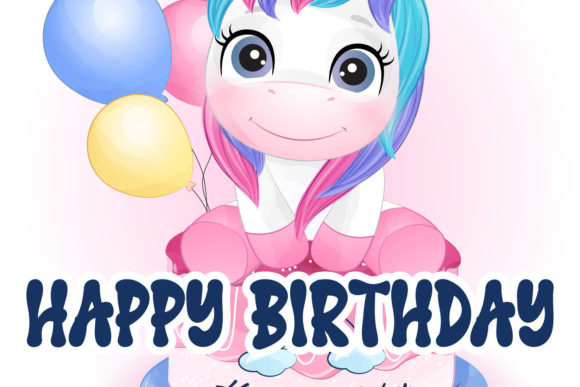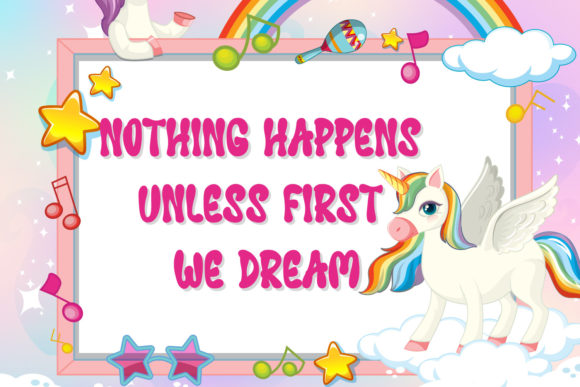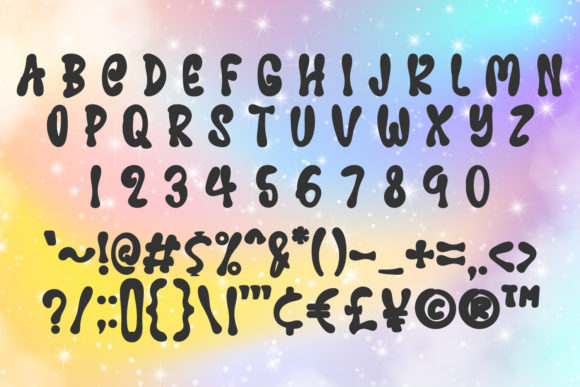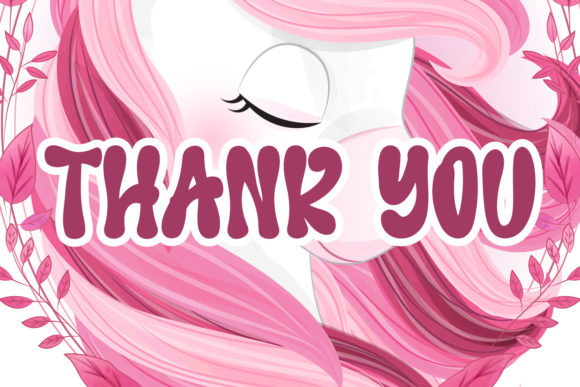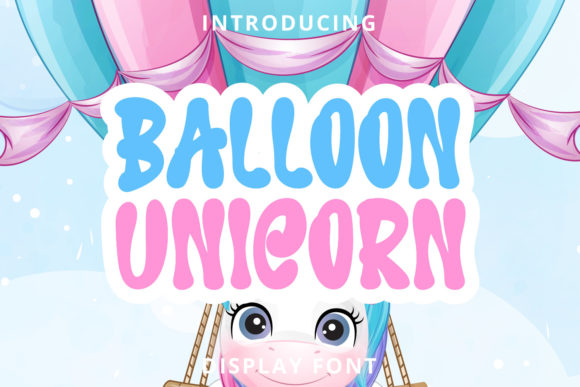
Introducing the Whimsical World of Balloon Unicorn Font
Are you on the hunt for a font that embodies the essence of playfulness and charm? Look no further than the delightful Balloon Unicorn Font! This fun and jolly display font is perfect for any children’s activity or school project that requires a touch of magic and whimsy.
The Perfect Blend of Playfulness and Authenticity
Balloon Unicorn Font is a unique and captivating typeface that is sure to capture the hearts of designers, crafters, and educators alike. Its playful and authentic design makes it an ideal choice for a wide range of creative projects, from colorful posters and flyers to engaging educational materials and fun craft projects.
Key Features of Balloon Unicorn Font
- Fun and Jolly Design: Balloon Unicorn Font boasts a playful and cheerful design that is sure to bring a smile to anyone’s face.
- Display Font: This font is specifically designed as a display font, making it perfect for headlines, titles, and other attention-grabbing elements.
- Playfulness and Authenticity: The font embodies a sense of playfulness and authenticity, making it perfect for projects that require a touch of whimsy and charm.
- Children’s Activities and School Projects: Balloon Unicorn Font is the perfect choice for any children’s activity or school project, including posters, flyers, worksheets, and more.
Use Cases for Balloon Unicorn Font
So, what can you create with this delightful font? The possibilities are endless! Here are a few ideas to get you started:
- Children’s Posters and Flyers: Create eye-catching posters and flyers for children’s events, parties, and activities.
- School Projects: Use Balloon Unicorn Font to add a touch of fun and personality to school projects, such as book reports, science fair projects, and more.
- Craft Projects: Add a touch of whimsy to your craft projects, such as handmade cards, gift tags, and other paper crafts.
- Educational Materials: Use Balloon Unicorn Font to create engaging and interactive educational materials, such as worksheets, activity sheets, and more.
Tips for Using Balloon Unicorn Font
To get the most out of Balloon Unicorn Font, here are a few tips to keep in mind:
- Use it Sparingly: While Balloon Unicorn Font is playful and fun, it’s best to use it sparingly to avoid overwhelming your design.
- Pair it with Other Fonts: Consider pairing Balloon Unicorn Font with other fonts to create visual interest and add depth to your design.
- Experiment with Colors: Don’t be afraid to experiment with different colors and color combinations to add an extra touch of whimsy to your design.